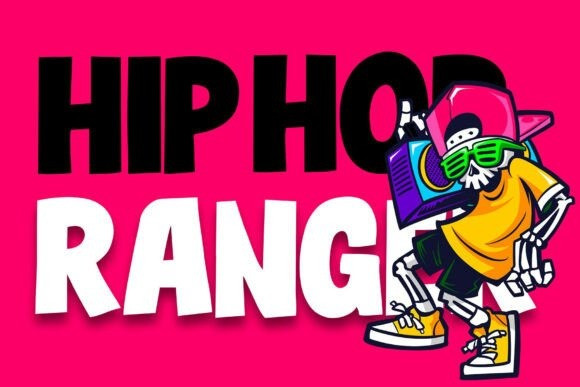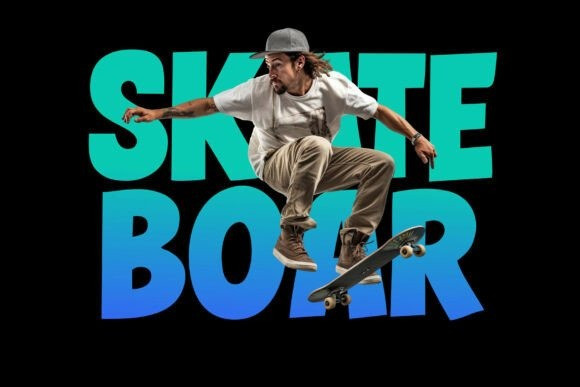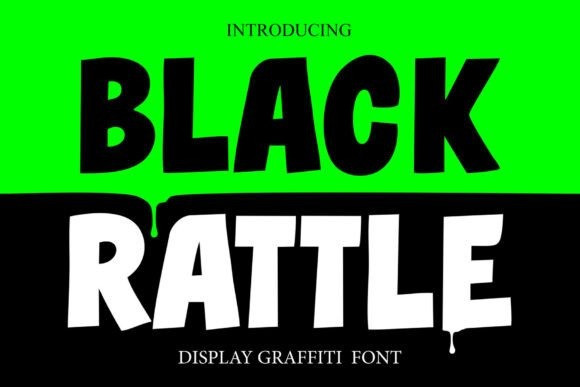
Black Rattle Font
Black Rattle injects raw, urban energy into your creative endeavors. This bold graffiti display font, marked by its dripping-edge design, transforms your projects into captivating expressions of street culture. Its heavy strokes and sharp forms emanate authentic graffiti aesthetics, making it an ideal choice for striking posters, edgy streetwear branding, evocative album covers, eye-catching flyers, and immersive gaming visuals.
Black Rattle brings to you a complete package of features; it includes uppercase, lowercase, numbers, punctuation, multilingual characters, and unique dripping alternates. The font, available in both OTF and TTF formats, is easy to install and highly compatible, seamlessly working across platforms like Adobe Illustrator, Photoshop, CorelDRAW, Affinity, and beyond. With Black Rattle, your typography doesn’t just speak – it echoes, pulsating with unrestrained vibrancy.